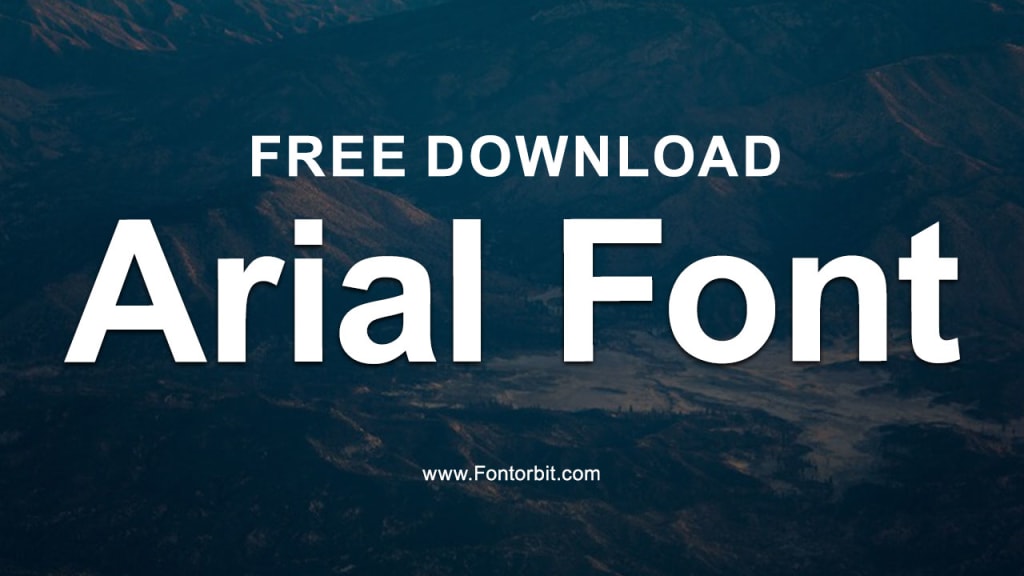
Arial Font: A Timeless Typeface for Modern Needs
Arial Font
Arial is one of the most widely recognized and used typefaces in the world. Created in 1982 by Robin Nicholas and Patricia Saunders for Monotype Typography, Arial was designed as a sans-serif typeface to offer versatility and clarity across various mediums.
Whether in print or digital applications, this font has become a staple for designers, businesses, and individuals alike. But what makes Arial so enduringly popular? Let's dive into its history, characteristics, applications, and why it remains a favorite in typography.
A Brief History of Arial
Arial was initially designed as a competitor to Helvetica, a typeface that had dominated the market since its creation in 1957. Monotype developed Arial to provide a similar aesthetic but with slight modifications that made it more economical and efficient to produce.
Microsoft adopted Arial as a core font in the 1990s, bundling it with its Windows operating system. This pivotal move catapulted Arial into mainstream use, making it accessible to millions of users worldwide.
Key Characteristics of Arial
Arial is often praised for its simplicity and legibility. Some of its defining features include:
Sans-Serif Design: Arial lacks the small decorative strokes (serifs) found in serif fonts, giving it a clean and modern appearance.
Neutral Tone: The font’s design is intentionally unembellished, allowing it to blend seamlessly into various contexts without overshadowing the content.
Adaptability: Arial’s wide range of weights and styles, from light to bold and regular to italic, makes it suitable for diverse applications.
High Legibility: Its consistent stroke widths and balanced letterforms ensure clarity, even at smaller sizes.
Common Uses of Arial
Thanks to its versatility, Arial is employed across many industries and mediums:
Business Documents: Arial’s professional and clean look makes it a popular choice for reports, presentations, and correspondence.
Web Design: As a web-safe font, Arial is widely used in digital design to ensure consistent rendering across devices.
Advertising: Its neutral tone allows it to support a variety of branding elements without dominating the design.
Education: Arial is commonly used in educational materials due to its readability and simplicity.
Signage: The font’s high legibility makes it ideal for signs, especially in public spaces.
The Debate: Arial vs. Helvetica
While Arial is often compared to Helvetica, the two fonts have distinct differences. Helvetica features a more uniform character width and spacing, while Arial’s design incorporates softer, more rounded elements. Critics of Arial sometimes view it as a less refined version of Helvetica, but its accessibility and practicality have solidified its place in the typography world.
Why Arial Remains Relevant
Arial’s enduring popularity can be attributed to its:
Ubiquity: Its inclusion in operating systems and software ensures that almost everyone has access to it.
Ease of Use: Arial’s straightforward design makes it a go-to choice for users who need a reliable and professional font.
Versatility: The font’s adaptability to various contexts, from formal to casual, keeps it relevant in an ever-changing design landscape.
Conclusion
Arial has stood the test of time as a versatile and reliable typeface. Its simple design, widespread availability, and adaptability have made it a cornerstone of modern typography.
Whether you’re designing a website, creating a presentation, or printing a flyer, Arial is a dependable choice that balances functionality with aesthetic appeal.
FAQs About Arial Font
1. Who created the Arial font?
Arial was designed by Robin Nicholas and Patricia Saunders for Monotype Typography in 1982.
2. What makes Arial different from Helvetica?
While Arial and Helvetica share similarities, Arial features softer, more rounded characters and slight differences in character spacing and proportions.
4. Why is Arial so popular?
Arial’s popularity stems from its simplicity, versatility, and widespread availability, particularly due to its inclusion in Microsoft Windows.
5. Can Arial be used for professional design projects?
Yes, Arial’s clean and professional look makes it suitable for a wide range of professional applications, from business documents to advertisements.
6. What are some alternatives to Arial?
Common alternatives include Helvetica, Calibri, Verdana, and Open Sans.
7. Is Arial a good choice for web design?
Absolutely. Arial’s high legibility and status as a web-safe font make it an excellent choice for web design.